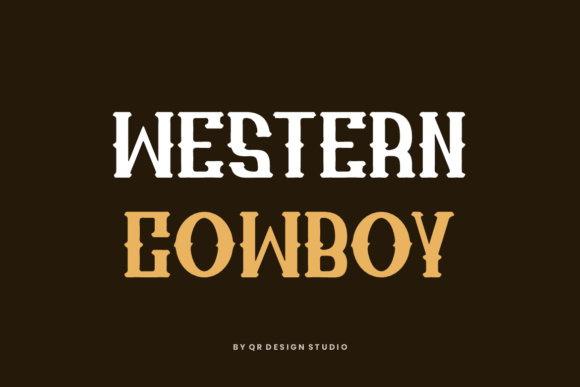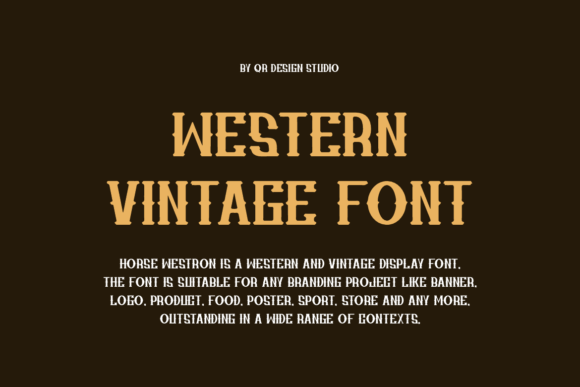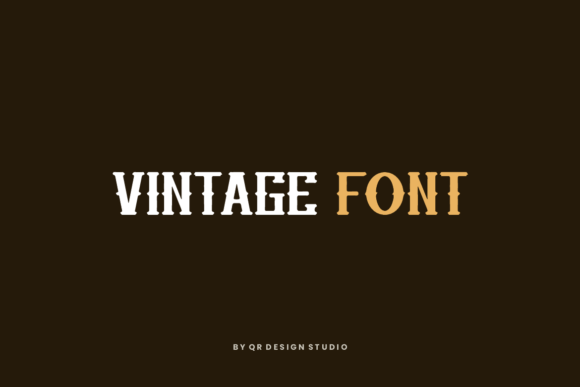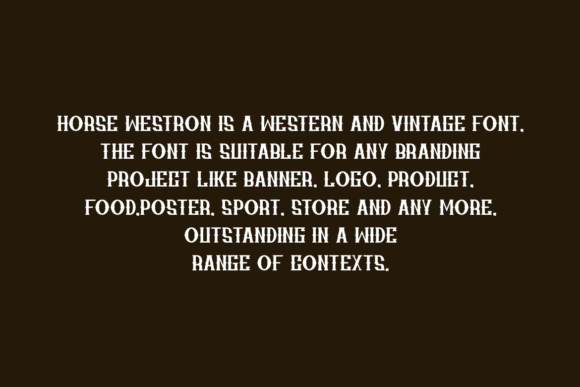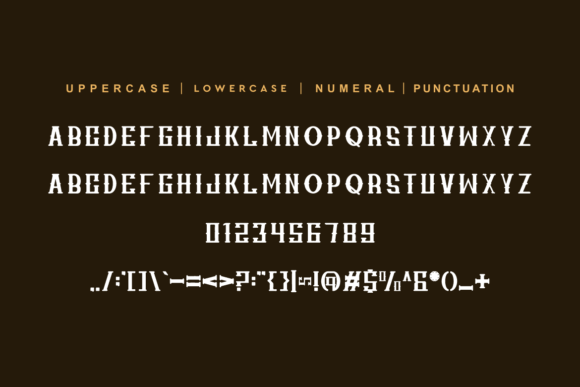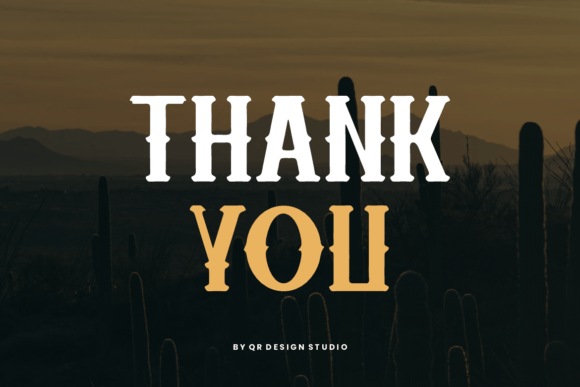
Introduction to Horse Westron Font Font
Fonts play a crucial role in design, and the Horse Westron Font font is a typeface that brings both character and versatility to any project. Whether you’re working on a branding project, a website, or a print design, the Horse Westron Font font offers a unique style that can elevate your work.
Horse Westron is an incredibly unique slab serif font.
Masterfully designed to become a true favorite, this font has the potential to bring each of your creative ideas to the highest level .
Key Features of Horse Westron Font Font
Why Choose Horse Westron Font Font?
The Horse Westron Font font is more than just a typeface – it’s a design tool that helps you communicate your message with style and clarity. Its unique character set and versatile design make it suitable for a wide range of applications, from elegant invitations to bold headlines.
With its carefully crafted letterforms and balanced proportions, the Horse Westron Font font ensures readability and visual appeal across all mediums.
What makes Horse Westron Font font special?
The Horse Westron Font font stands out with its unique design, exceptional readability, and versatility across various design applications.